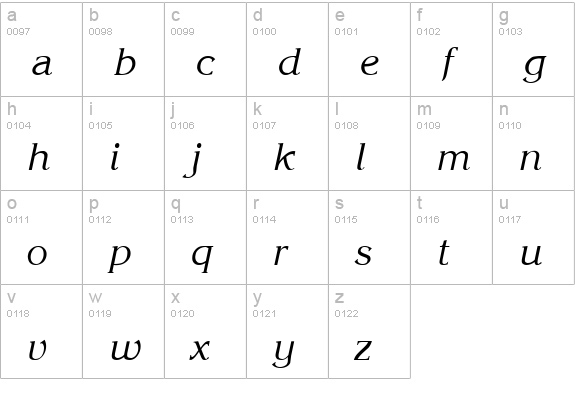
Krone Italic Font Details
Krone Italic is a distinctive, italic variant in the Krone typeface family \xE2\x80\x94 well suited to design and typography projects.
Krone Italic font is a stylish and elegant typeface that exudes sophistication and class. Its sleek curves and graceful letterforms make it perfect for adding a touch of refinement to any design project. The italic style of Krone adds a sense of movement and flair, making it a versatile choice for both headings and body text. What sets Krone Italic font apart is that it is available for free download at FontsMarket.com. This means that you can easily access this beautiful font without any cost, allowing you to enhance your projects without breaking the bank. Whether you're working on a website, a poster, a logo, or any other design, Krone Italic font will elevate your work to the next level with its timeless appeal. Download Krone Italic font today and see the difference it can make in your designs.